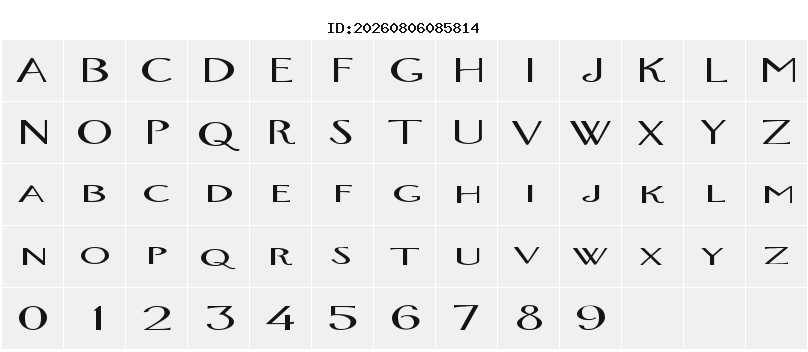
Orlando_Bold Preview
• Font Name: Orlando_Bold
• Full Font Name: Orlando_Bold
• PostScript Name: Orlando_Bold
About Orlando_Bold.ttf
Orlando_Bold.ttf is a modern, elegant sans-serif font designed for ultimate readability and visual harmony. Perfect for branding, headlines, web design, and print materials.